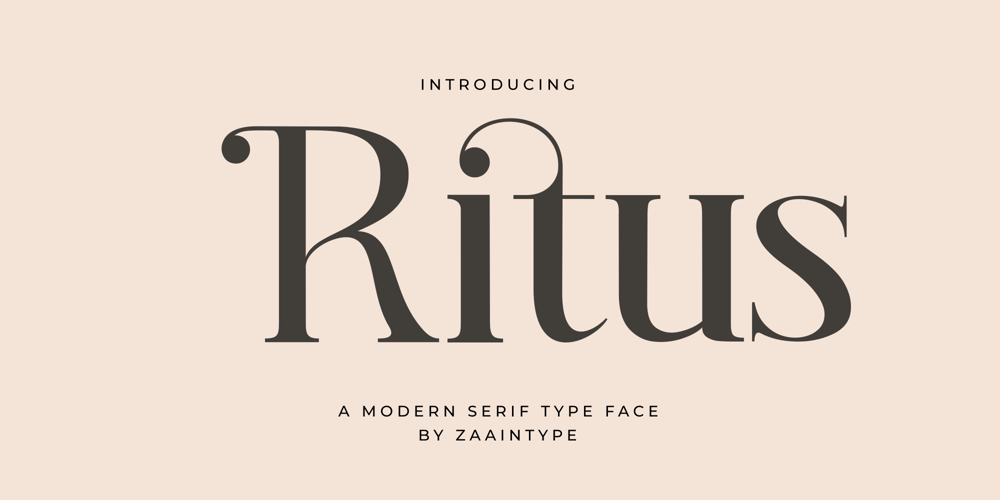
Ritus Font Family was designed by Ju Naen and published by Zaain Type. Ritus contains 1 styles and family package options. Introducing Ritus, a serif font crafted to bring a touch of classic elegance and luxury to any design project. With its refined details and balanced letter proportions, Ritus is perfect for branding, editorial work, product packaging, and invitations. This font offers a strong yet graceful character, delivering a formal and professional feel with an artistic touch. Elevate the visual appeal of your designs with Ritus, offering a harmonious blend of traditional beauty and modern functionality